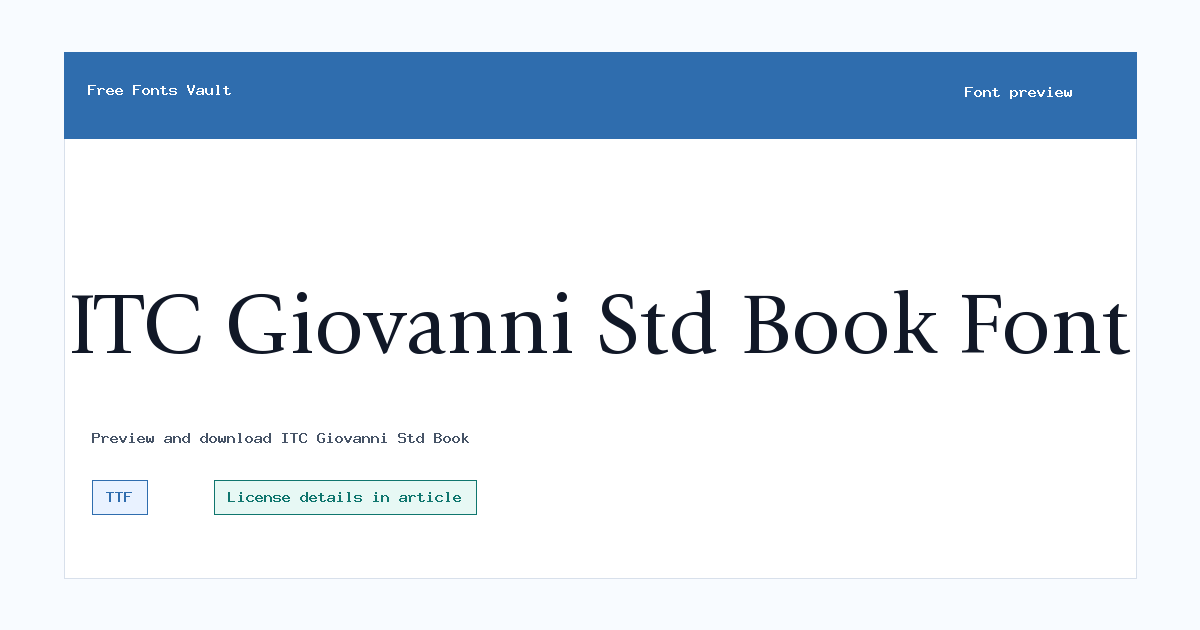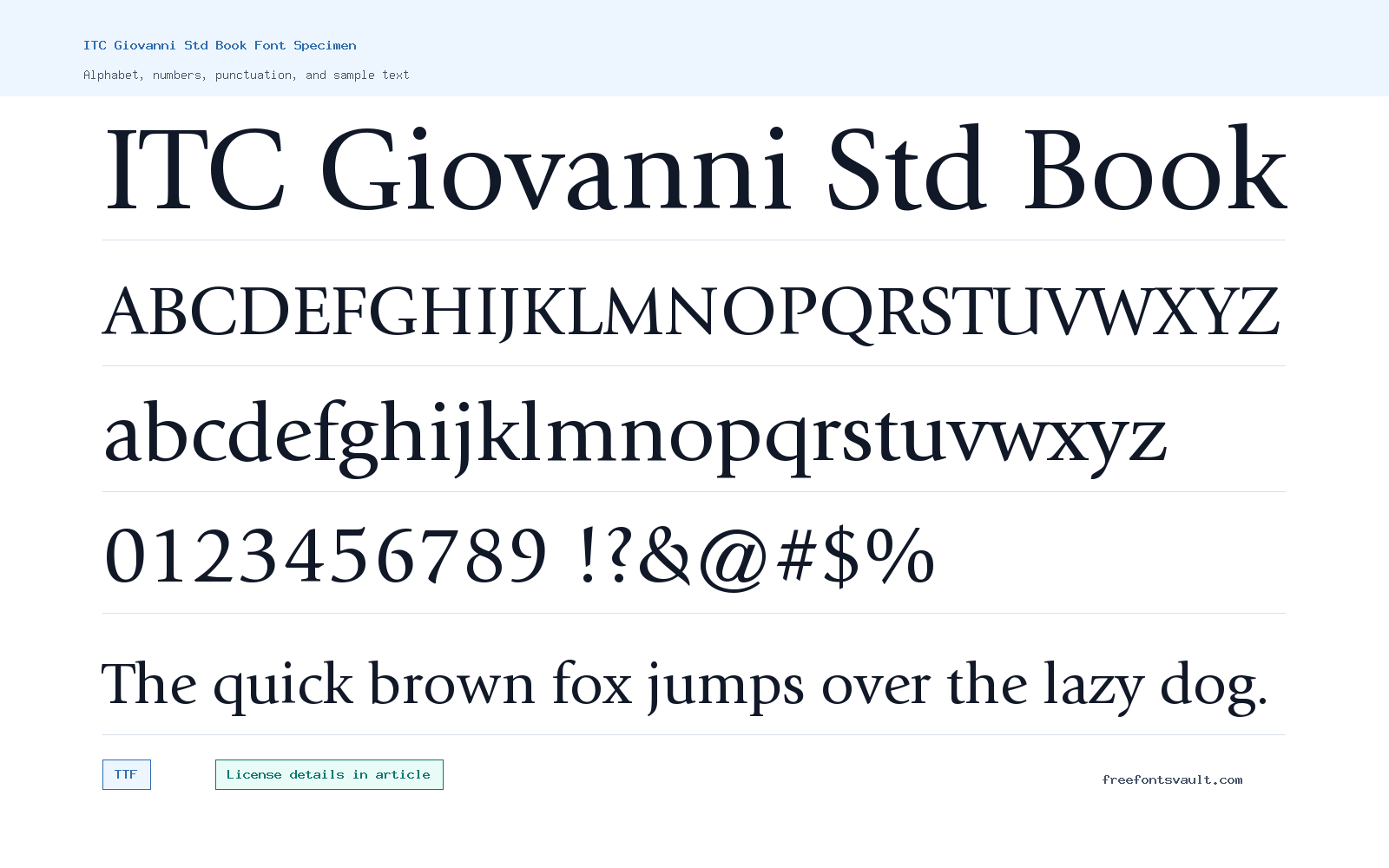
ITC Giovanni Std Book
ITC Giovanni Std Book is a polished serif typeface with a bookish, literary feel. It works best when you want text to look refined without feeling overly decorative.
ITC Giovanni is credited to Robert Slimbach, and Adobe Fonts lists the family as published through Adobe Fonts from Monotype. The design is described by Adobe as an Old Style-inspired serif with Renaissance calligraphic influence. In the Book weight, the result is a calm, readable serif with graceful proportions and a formal tone that suits editorial and design work.
Use ITC Giovanni Std Book for projects where the words need a composed, classic presence: article titles, book-style layouts, pull quotes, invitations, brand text, and refined text blocks. For long web reading, test it at real paragraph sizes before committing, because elegant serifs can lose clarity if rendered too small or used with tight line spacing. Pair it with a neutral sans serif for navigation, captions, or interface text so the serif can carry the main voice without making the layout feel heavy.
• Old Style-inspired serif structure with a graceful literary tone
• Good fit for headings, quotes, editorial layouts, and refined branding
• Editorial headings and article openers
• Book-like page layouts and literary projects
• Pull quotes, invitations, and short formal text
• Branding that needs a classic serif voice
Try the preview with the kind of text you actually plan to use. Test a headline, a short paragraph, and a quote. Give it enough line spacing in body text, avoid very small sizes on screens, and pair it with a simple sans serif if your layout needs menus, labels, or dense supporting text.
Who designed ITC Giovanni?
Adobe Fonts credits ITC Giovanni to Robert Slimbach.
What kind of font is ITC Giovanni Std Book?
It is a serif typeface with an Old Style-inspired, literary look. The Book weight is suited to refined headings, quotes, and readable text blocks.